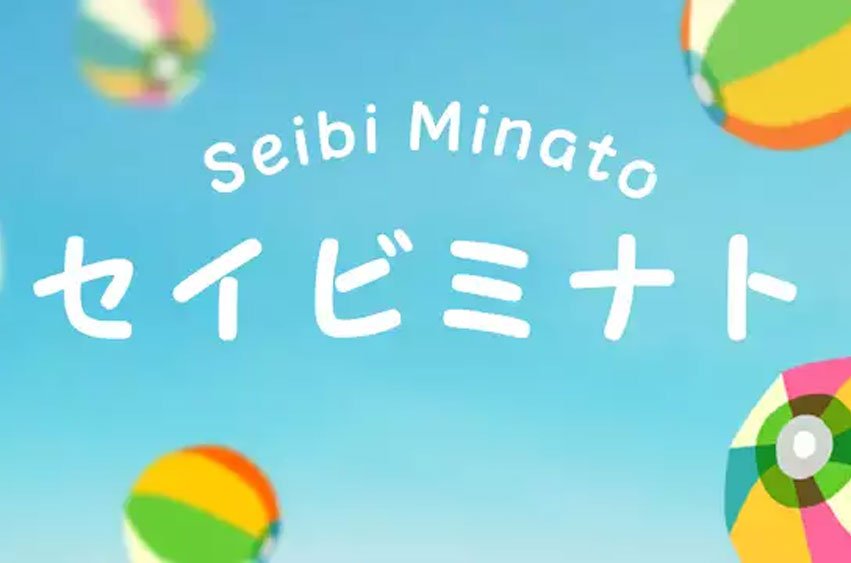
Seibi Minato Font
Seibi Minato Font Designed for the covers of children’s literature and picture books, this is a freehand-style, rounded gothic typeface that conveys warmth and softness.
It has also been sold as a font for use in-game software.